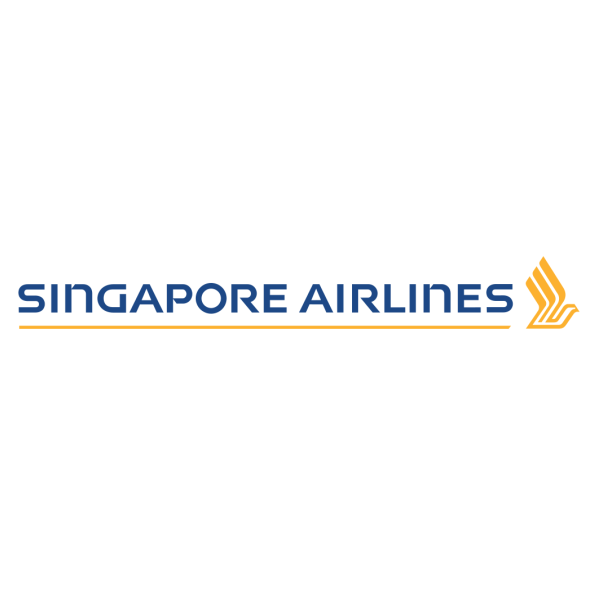
Singapore Airlines Font
AirlineSingapore Airlines is a major Asian airline based in Singapore. It was founded in 1947 as Malayan Airways and has since become one of the leading airlines in the world. It operates flights to more than 60 countries on six continents and has a fleet of over 100 aircraft. It has also been ranked as the world's best airline by Skytrax four times.
The logo of Singapore Airlines depicts a seagull and the brand name outlined in a sans serif font which is very reminiscent of Singapore Sling designed by Daniel Zadorozny. It is available in 13 variants: Regular, Italic, Condensed, Condensed Italic, Expanded, Expanded Italic, Bold, Bold Italic 3D, 3D Italic, Outline, Outline Italic, and Leftalic. You can download it for free in the Fonts Used Section.